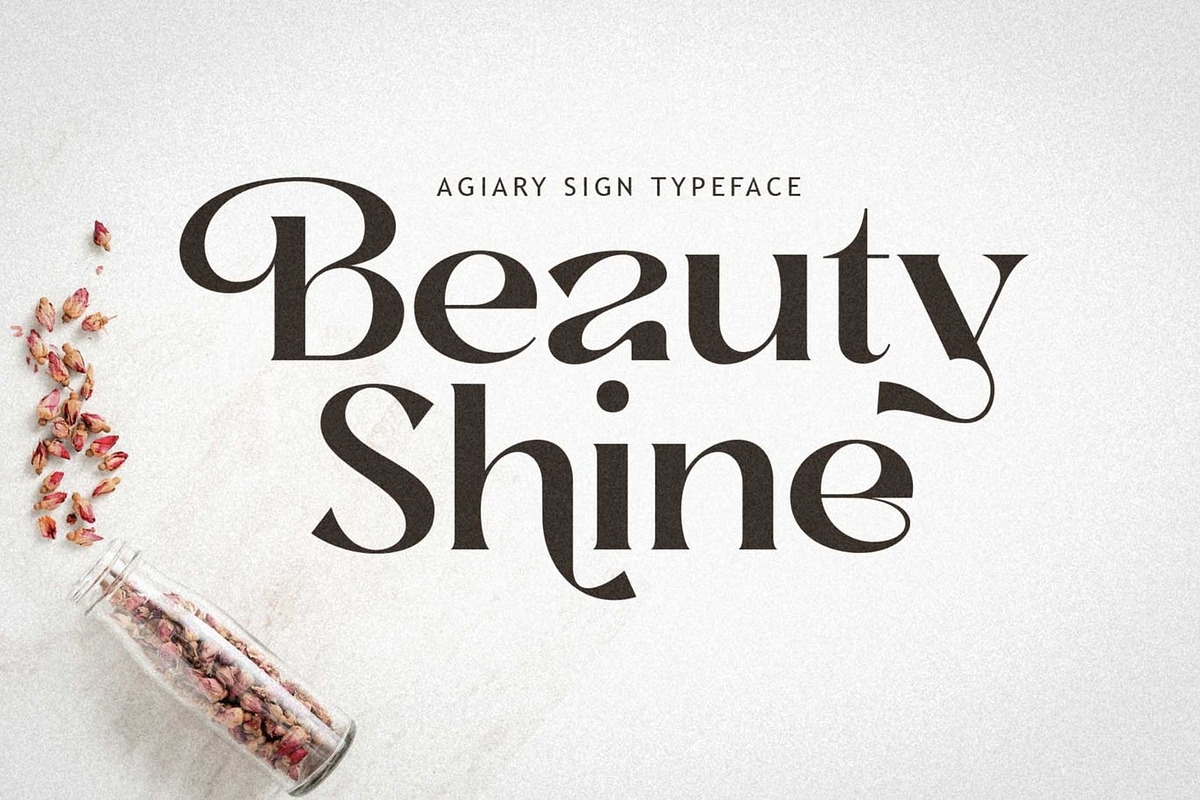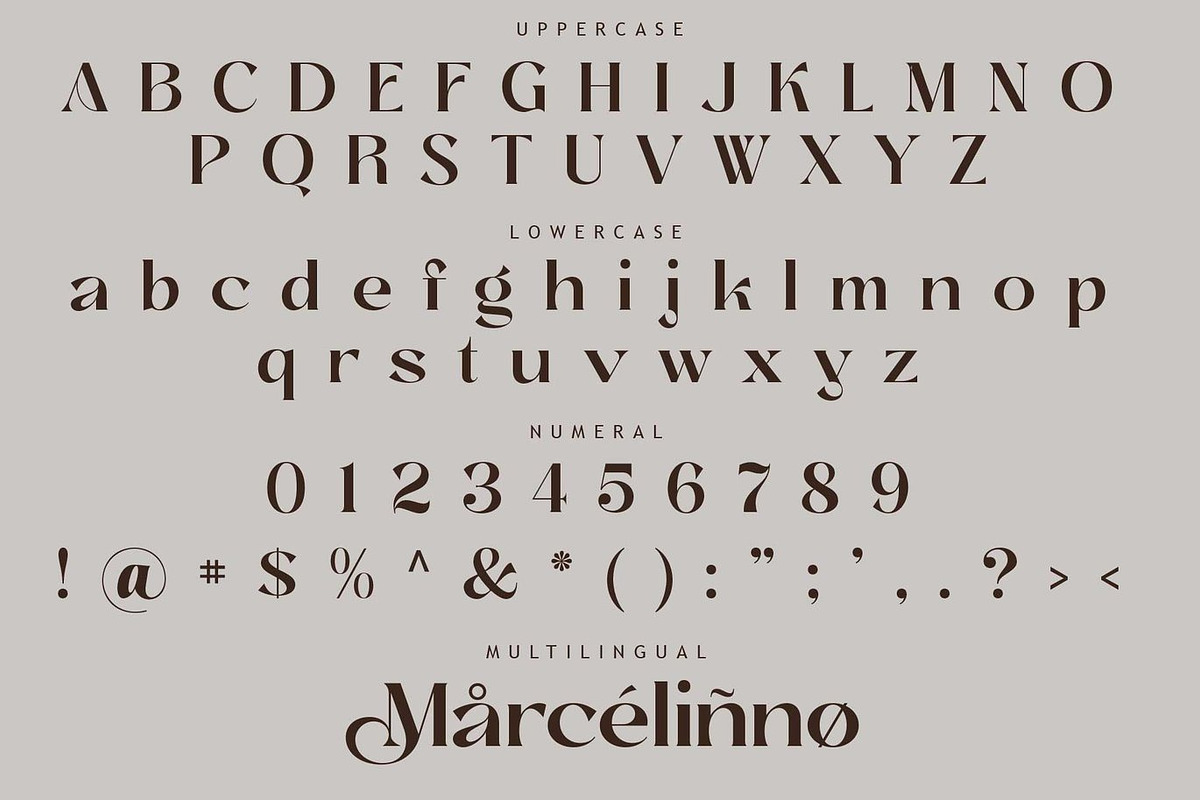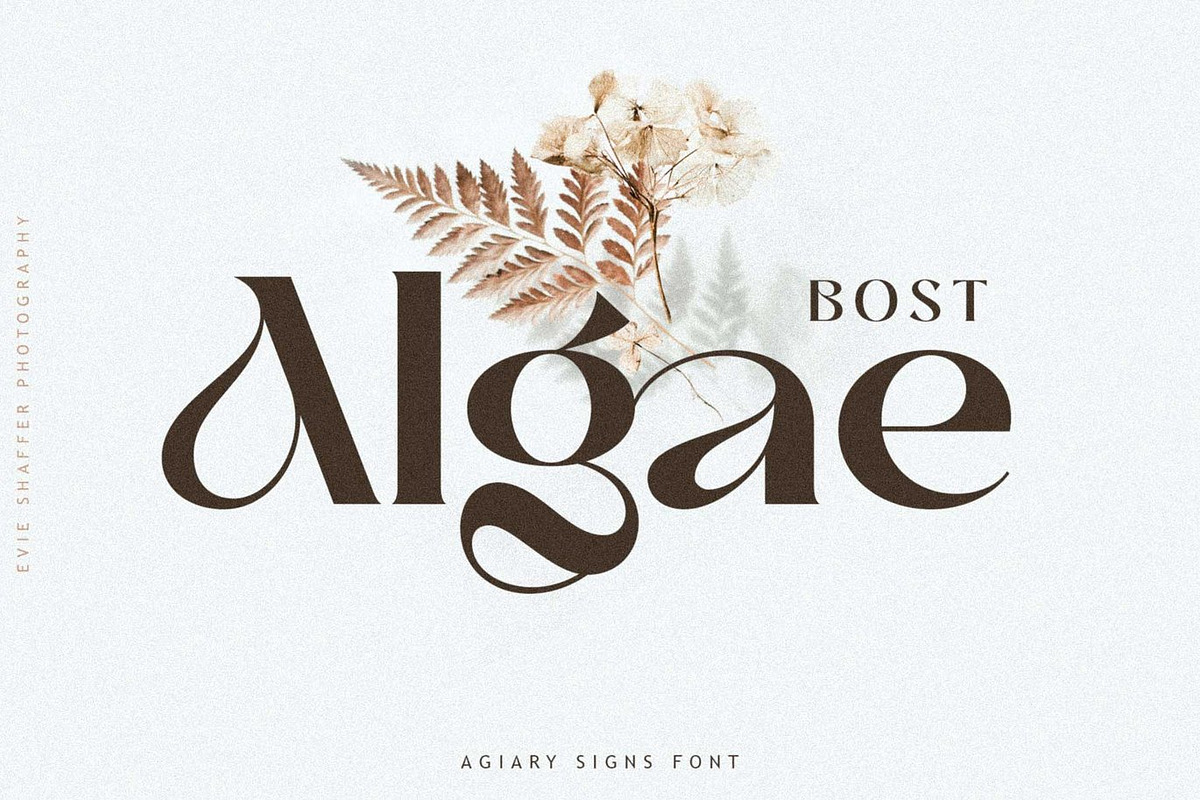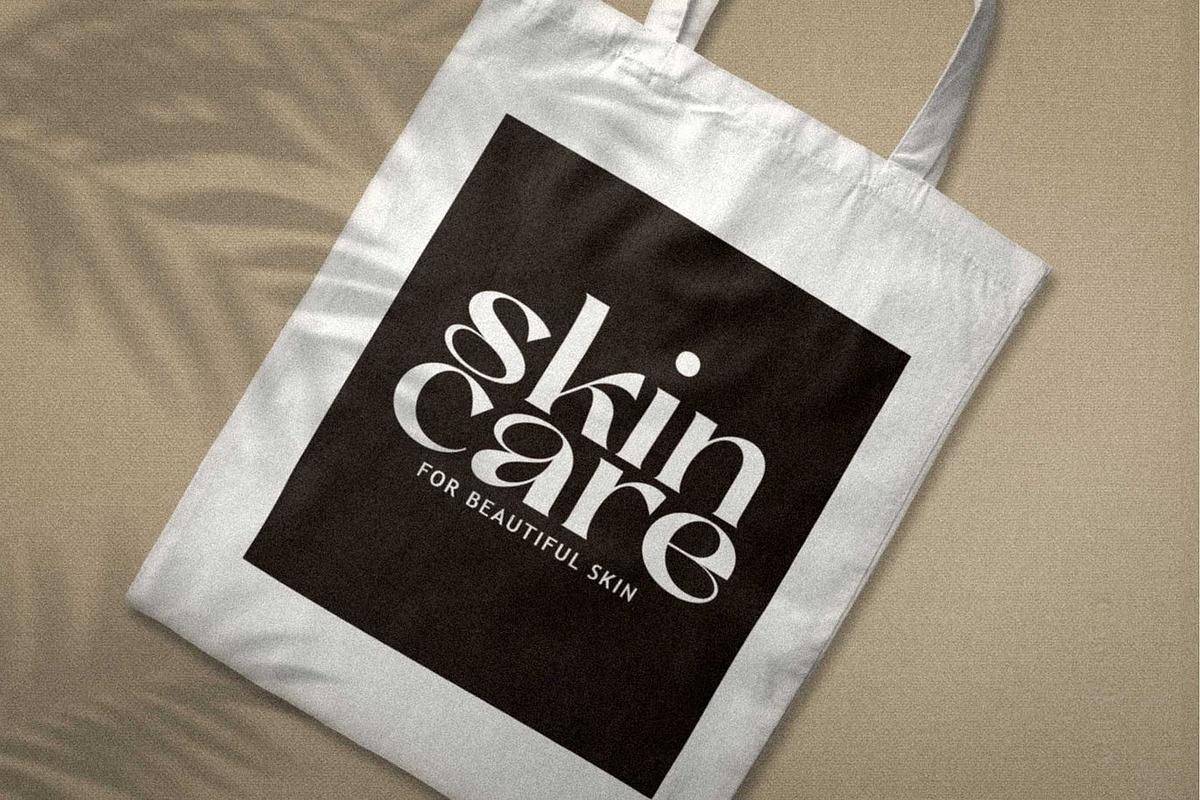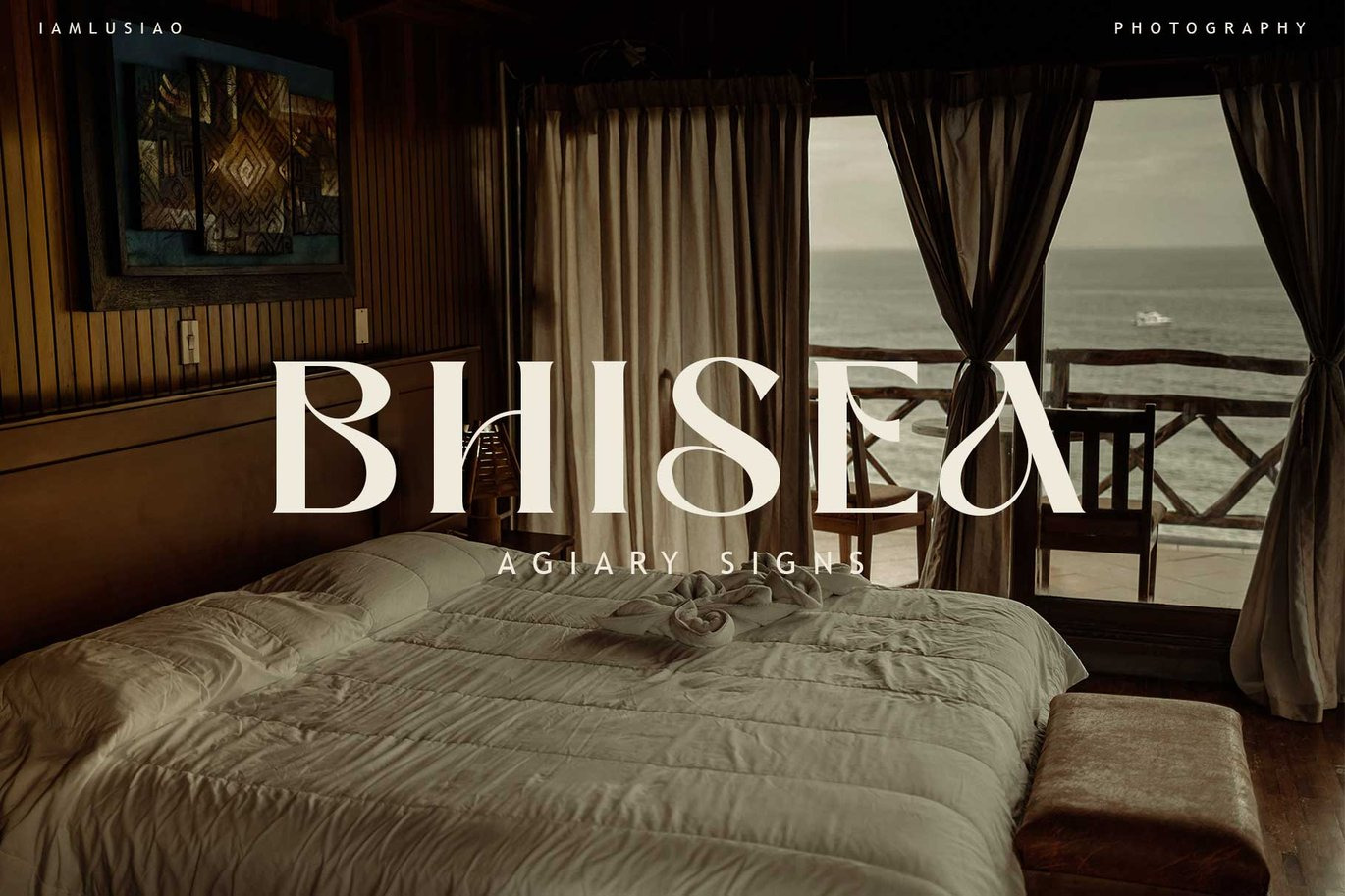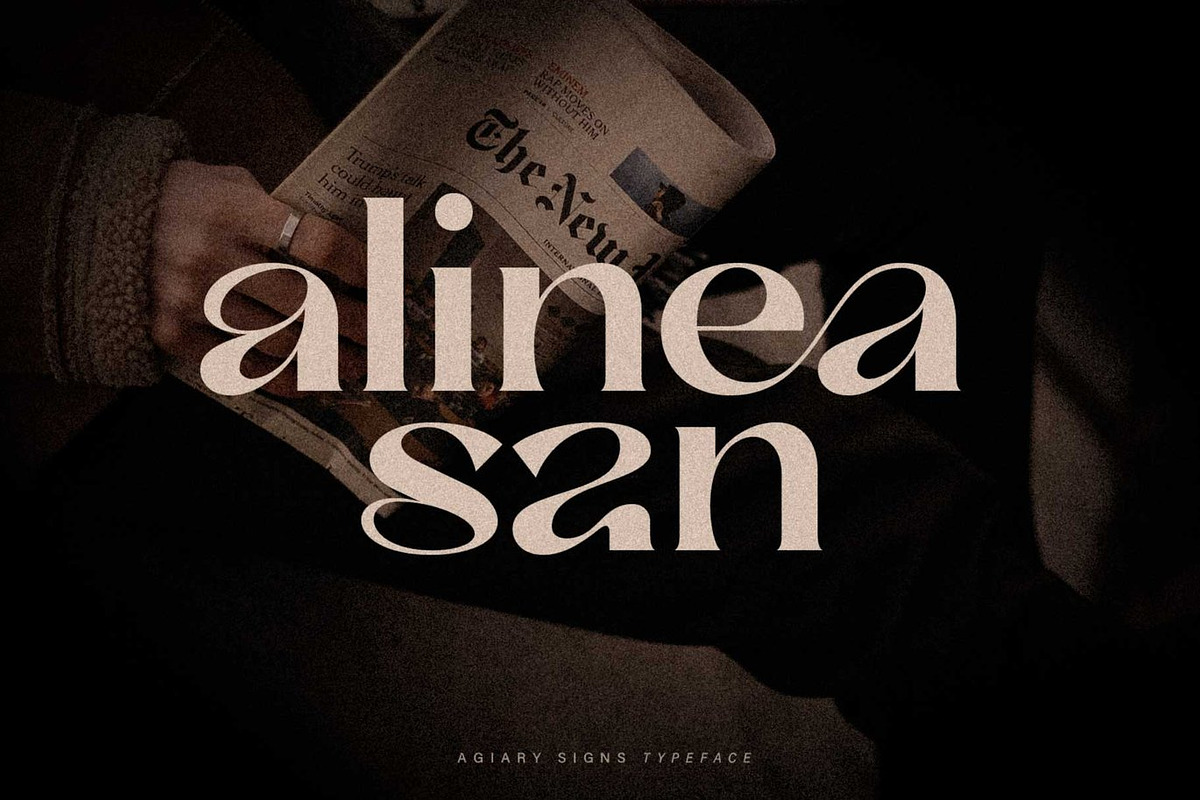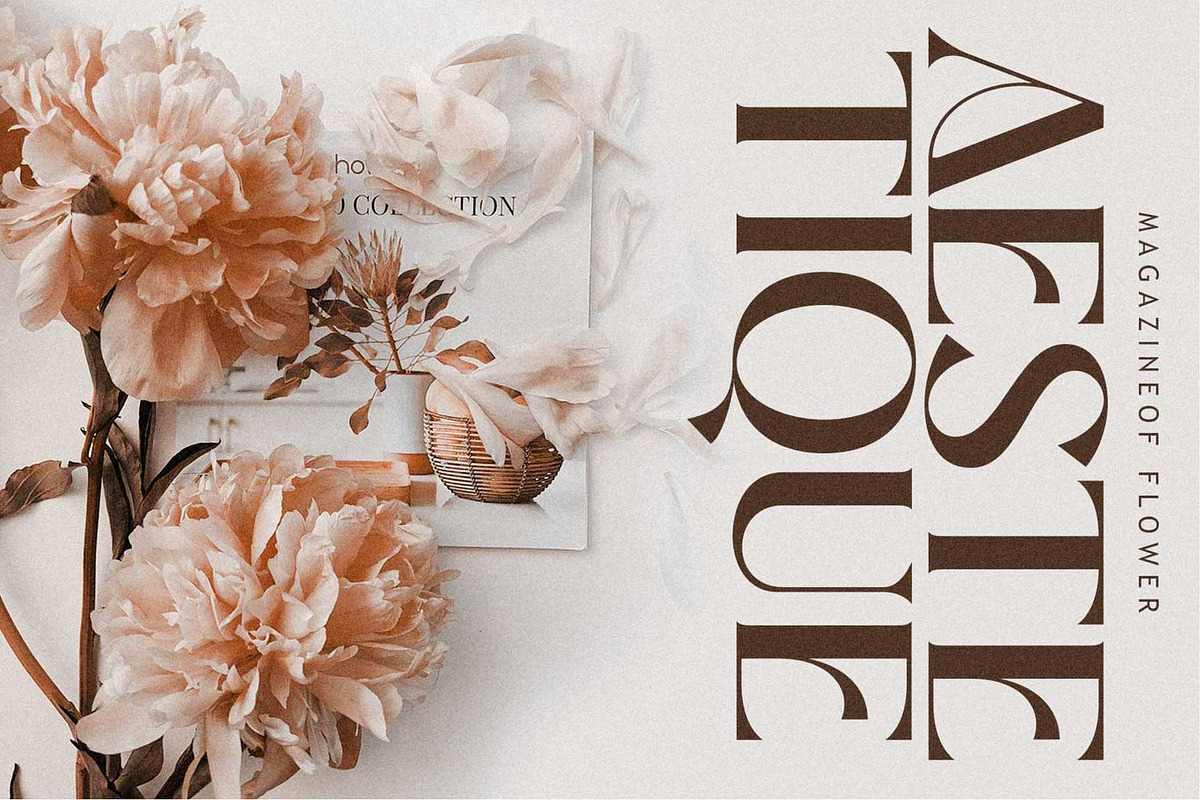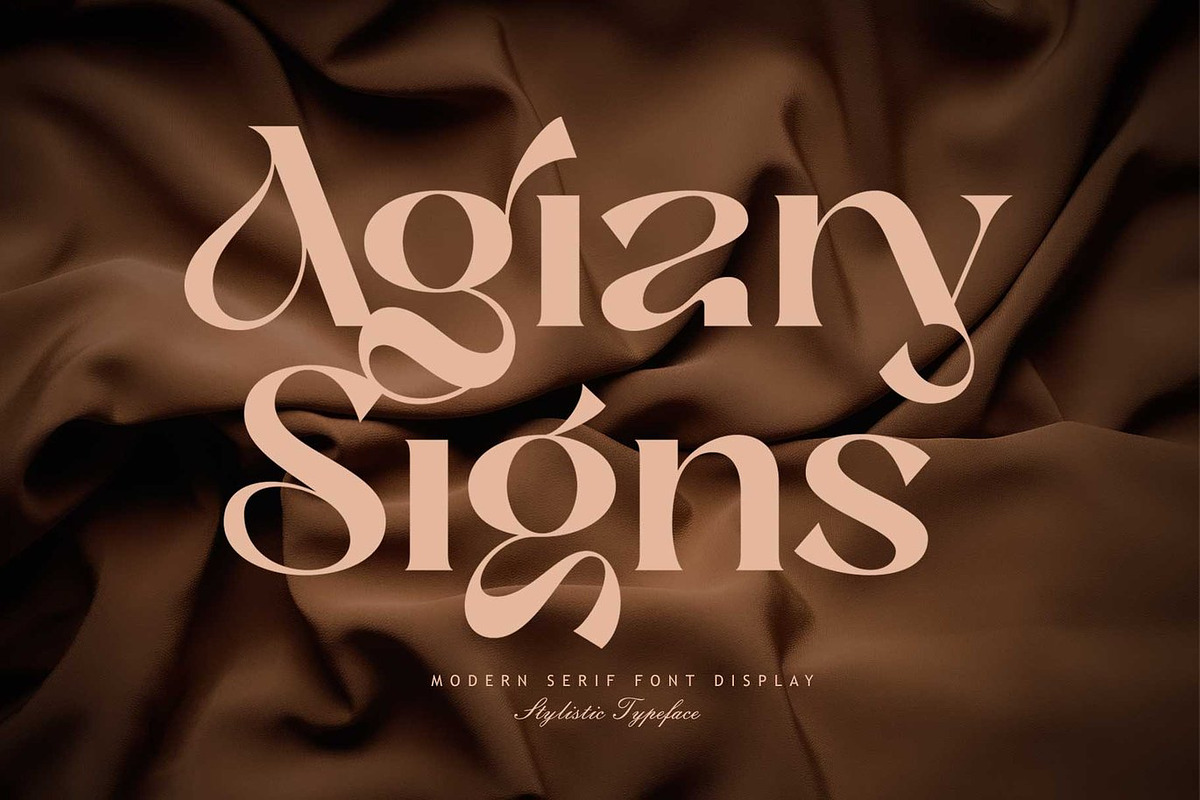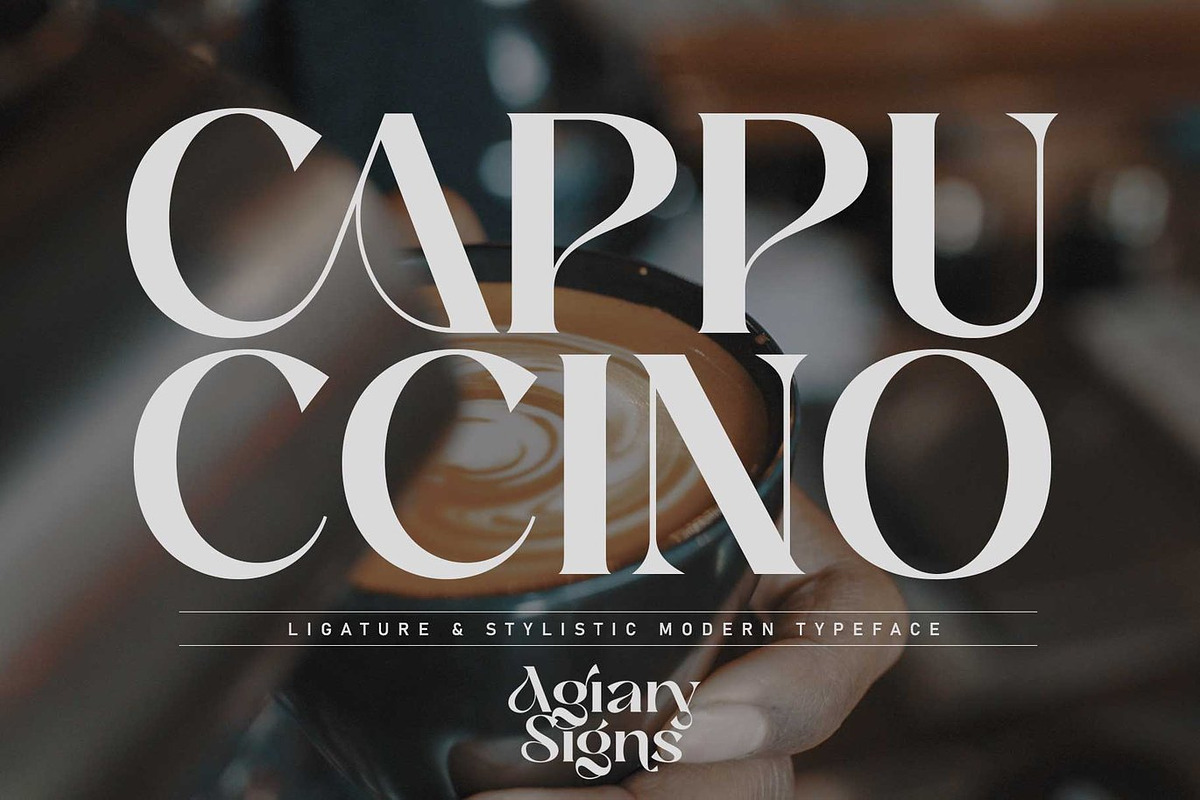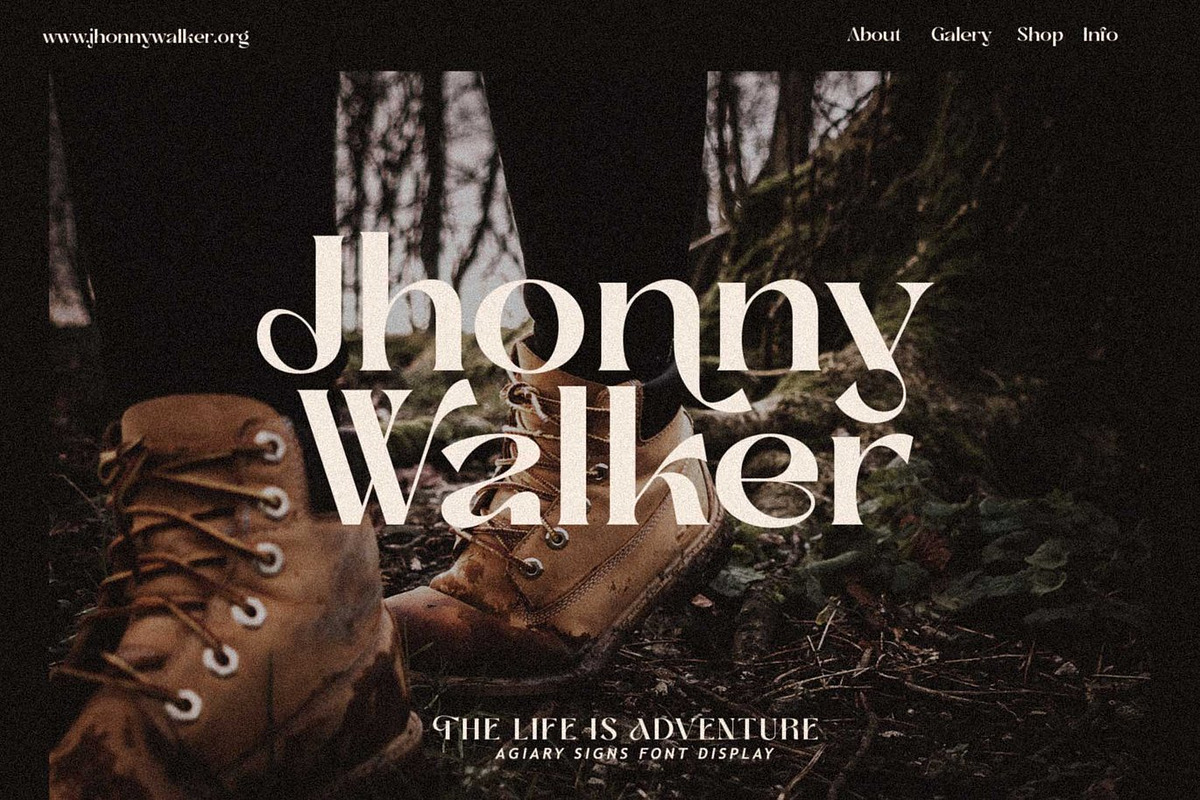
Bhisea - Elegant Ligature Serif Font
Bhisea is a stylish and artistic display font designed to bring elegance, movement, and sophistication into your typography. Inspired by graceful flowing forms and modern luxury aesthetics, Bhisea features beautifully crafted letterforms that appear to dance and rotate harmoniously together. The result is a unique typographic experience filled with creativity, rhythm, and refined visual beauty.
What makes Bhisea truly special is its rich collection of intertwined OpenType ligatures and alternative characters. These carefully designed combinations allow you to create countless unique typography styles with a natural and elegant flow. Every word feels custom crafted, making your designs more expressive, stylish, and memorable.
Bhisea is perfect for luxury branding, logos, editorial layouts, wedding invitations, fashion campaigns, cosmetic packaging, social media graphics, and modern creative projects. Its sophisticated personality works beautifully in both minimal and decorative compositions, helping designers create visuals that feel premium and artistic.
Designed for creators who value detail and versatility, Bhisea transforms ordinary text into elegant typographic art. Whether used for graceful headlines or refined branding elements, this font adds a luxurious and modern atmosphere to every project.
Bhisea Font Features:
• Elegant and artistic display style
• Stylish flowing letterforms
• Rich OpenType ligatures and alternates
• Uppercase and lowercase characters
• Numerals and punctuation
• Multilingual language support
• Perfect for branding, invitations, editorials, and logos
• Suitable for print and digital projects
Language Support Includes:
Danish, English, Estonian, Filipino, Finnish, French, Friulian, Galician, German, Swiss German, Irish, Italian, Low German, Luo, Luxembourgish, Norwegian Bokmål, Norwegian Nynorsk, Portuguese, Spanish, Swedish, and more.